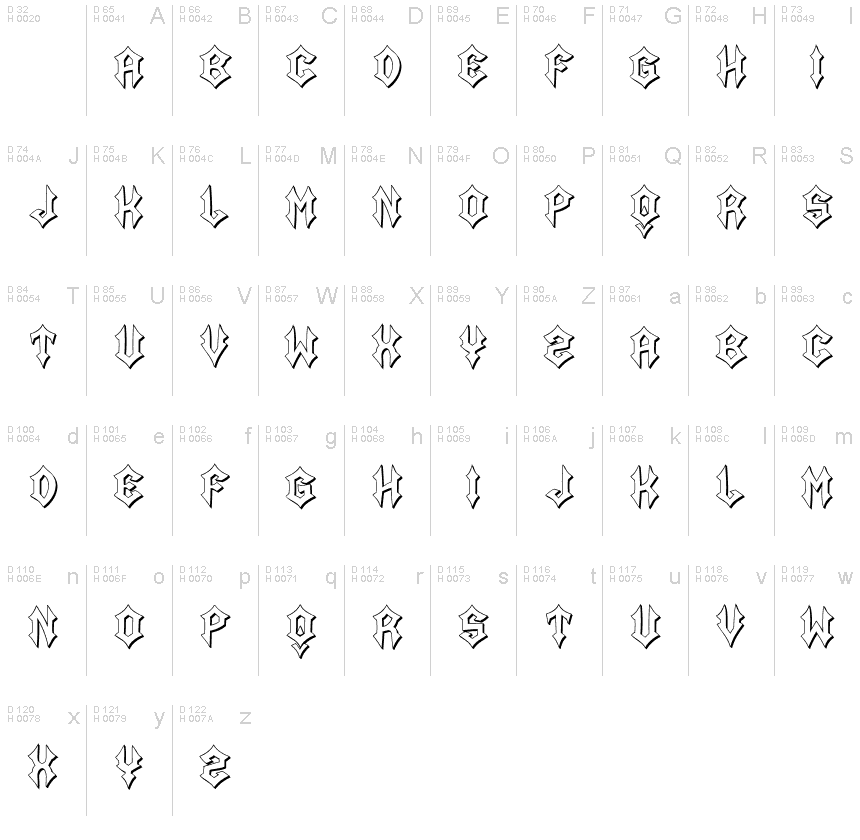
Abanyaro Regular
This modern and geometric gothic font, Abanyaro Regular, is designed by Vladimir Nikolic and part of the Abanyaro font family. It's perfect for creating sleek logos, stylish branding projects, and modern website designs.